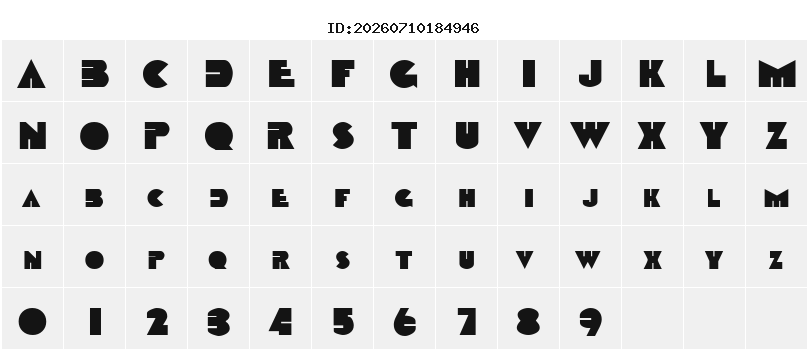
Garret Preview
• Font Name: Garret
• Font ID: SWFTE:Garret Regular
• Full Font Name: Garret
• Version: Rev. 003.000
• PostScript Name: GarretRegularSWFTE
• Character Count: 118
About Garret.ttf
Garret.ttf is a modern, elegant sans-serif font designed for ultimate readability and visual harmony. Perfect for branding, headlines, web design, and print materials.